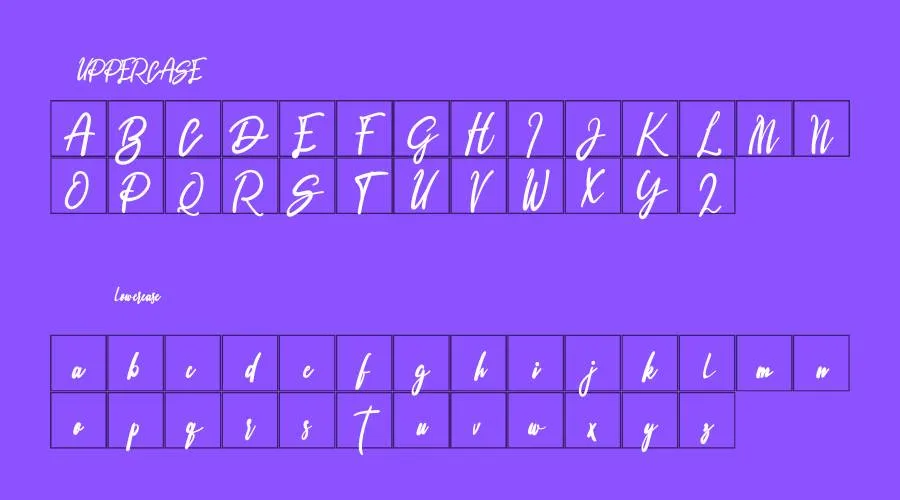
About Signature Font
Signature Font embodies typographic excellence through its masterful combination of calculated proportions and quality assurance. Created for corporate reports, this typeface delivers exceptional clarity and market credibility across all applications. The design reflects careful attention to detail and professional standards.
Advanced capabilities include distinctive ligatures and versatile dingbat elements, giving designers creative control. When used in compliance materials, Signature Font exhibits remarkable reproduction fidelity. The harmonious balance between stroke contrast and technical innovation sets this typeface apart.